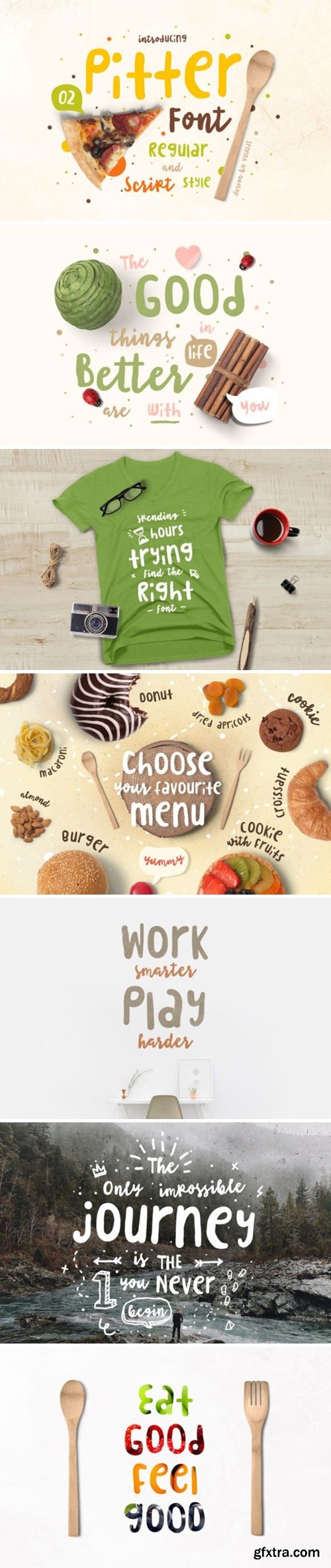
Pitter is a casual script font, every single letter has been uniquely crafted. This font includes a beautiful alternate glyph. You can access the alternate glyph via Font Book (Mac user) or Windows Character Map (Windows user). This font is PUA encoded which means you can access all of the amazing glyphs and ligatures with ease!